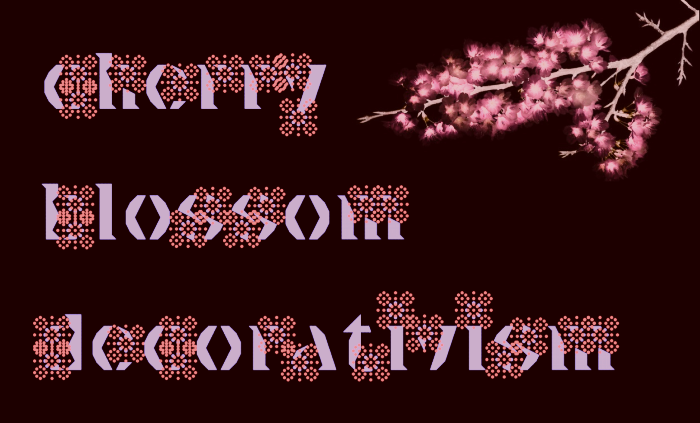
Beautiful work. Your work reminds me a bit of screen prints.
It isn't one of my favorites in the first round, but I've to admit that it's shocking! I'm with the people. Congratulations!
thx! i had on my mind to try something alike already at the very start of this whole bulbambul undertaking :))
Love both 'cherry' additions to your series. This one also has a 'firework' feel to it.
Maybe a bit too much decoration?